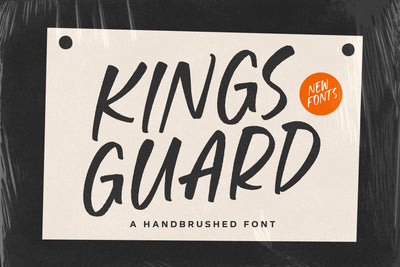
Kings Guard Font
Kings Guard is a Handbrushed Font.
Whether you’re using it for crafts, digital design, presentations, or making greeting cards, this font has the potential to become your favorite go-to font, no matter the occasion!